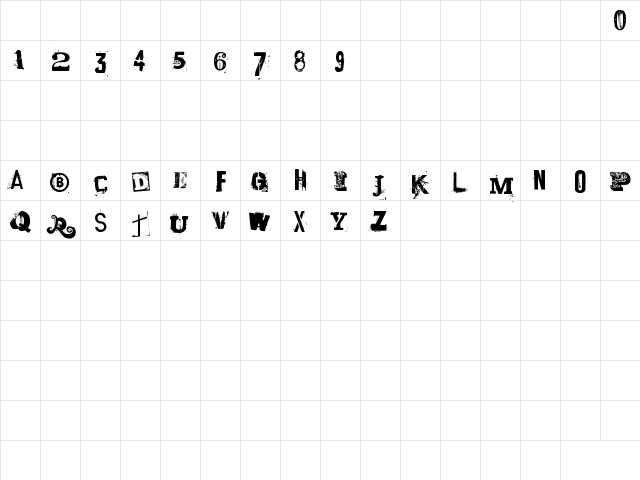
Complete laundromat 1967 Regular glyph index. Displaying only characters natively supported by laundromat 1967 Regular font.
laundromat 1967 is a composed and adaptable typeface that performs quietly and consistently across a wide range of design contexts.